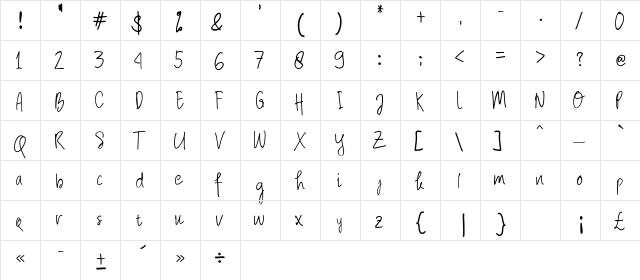
Scientia Venit Regular
Design Context for Scientia Venit Typeface
Scientia Venit is a composed and adaptable typeface that performs quietly and consistently across a wide range of design contexts.